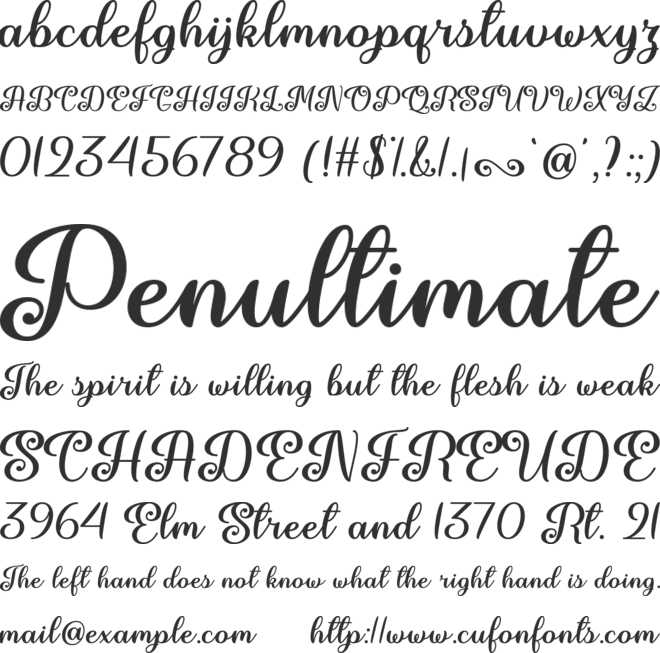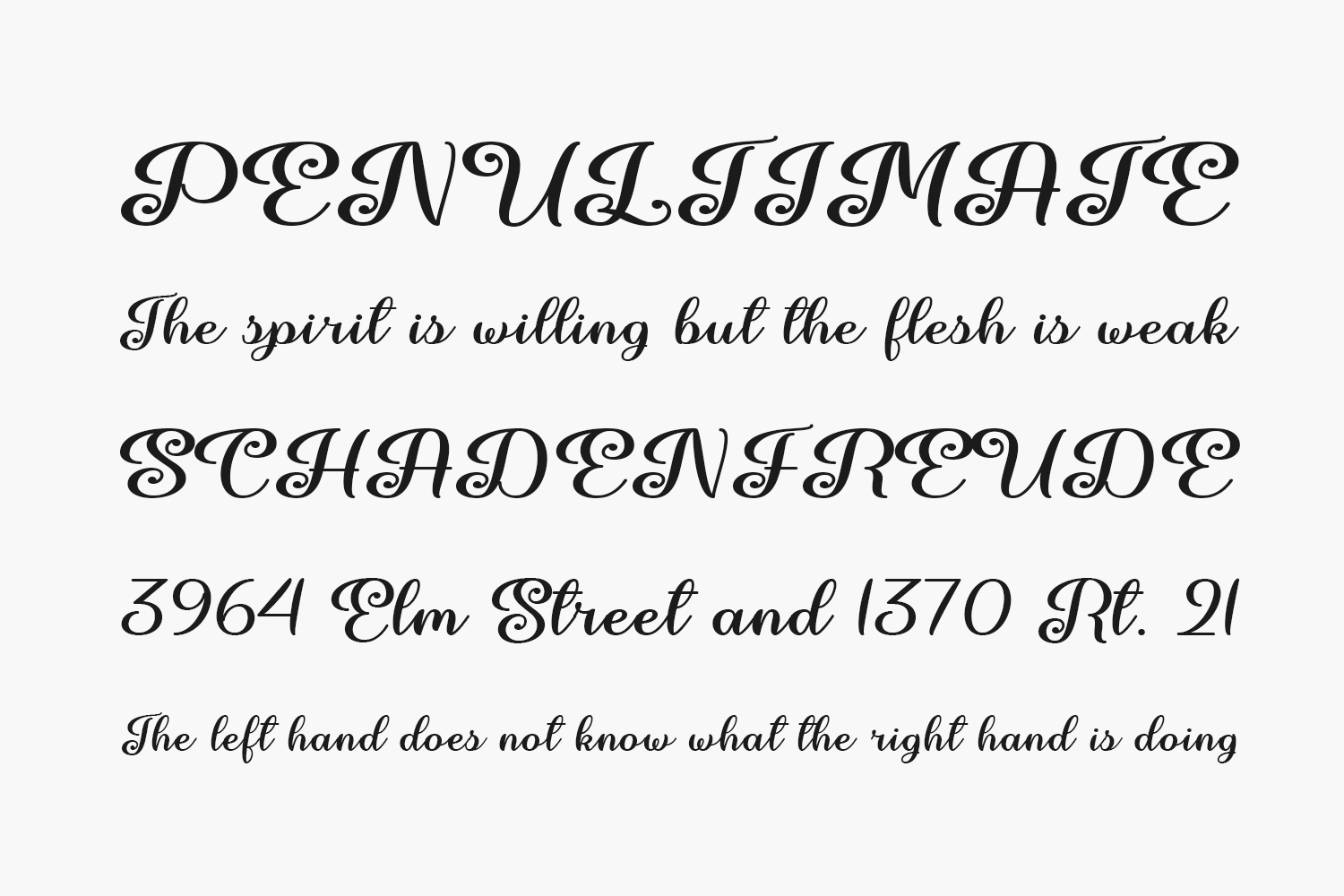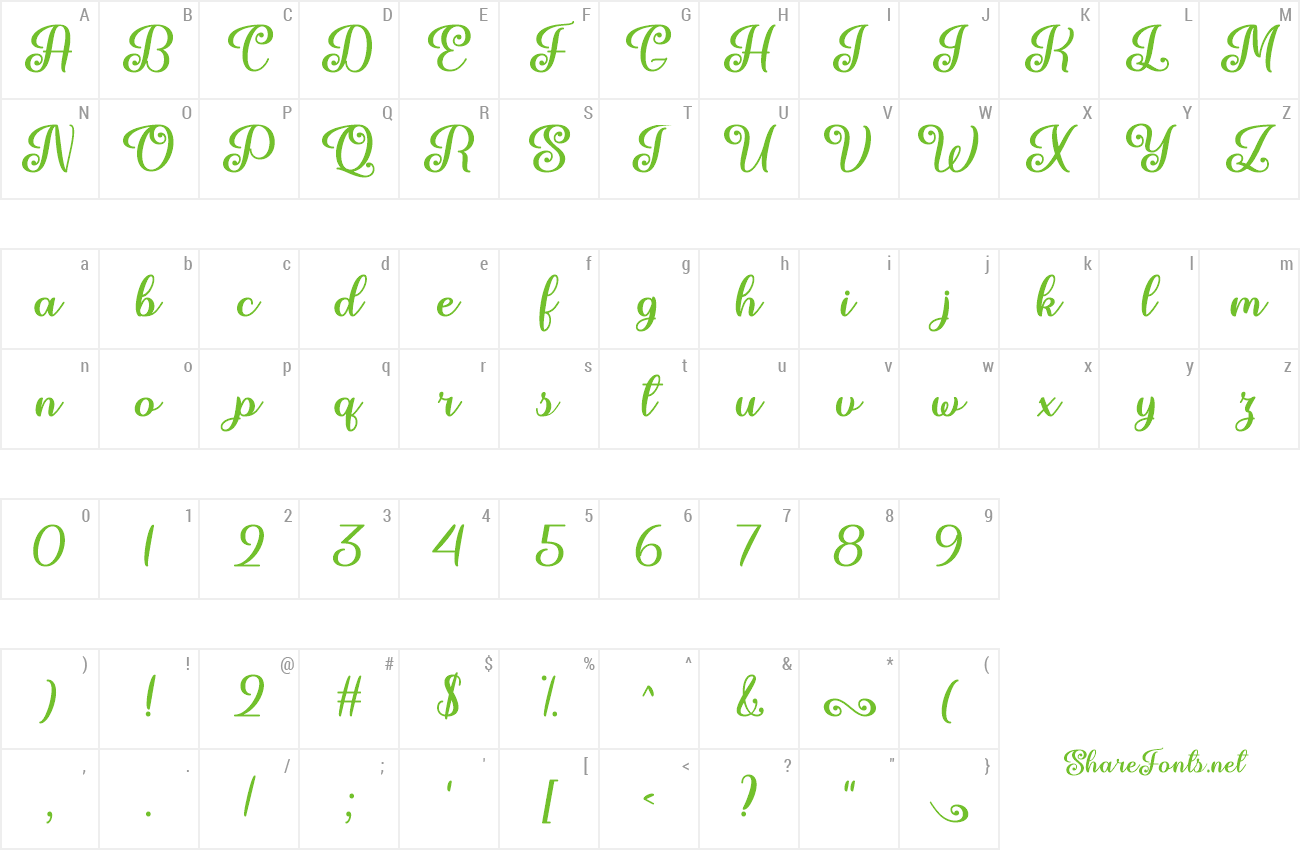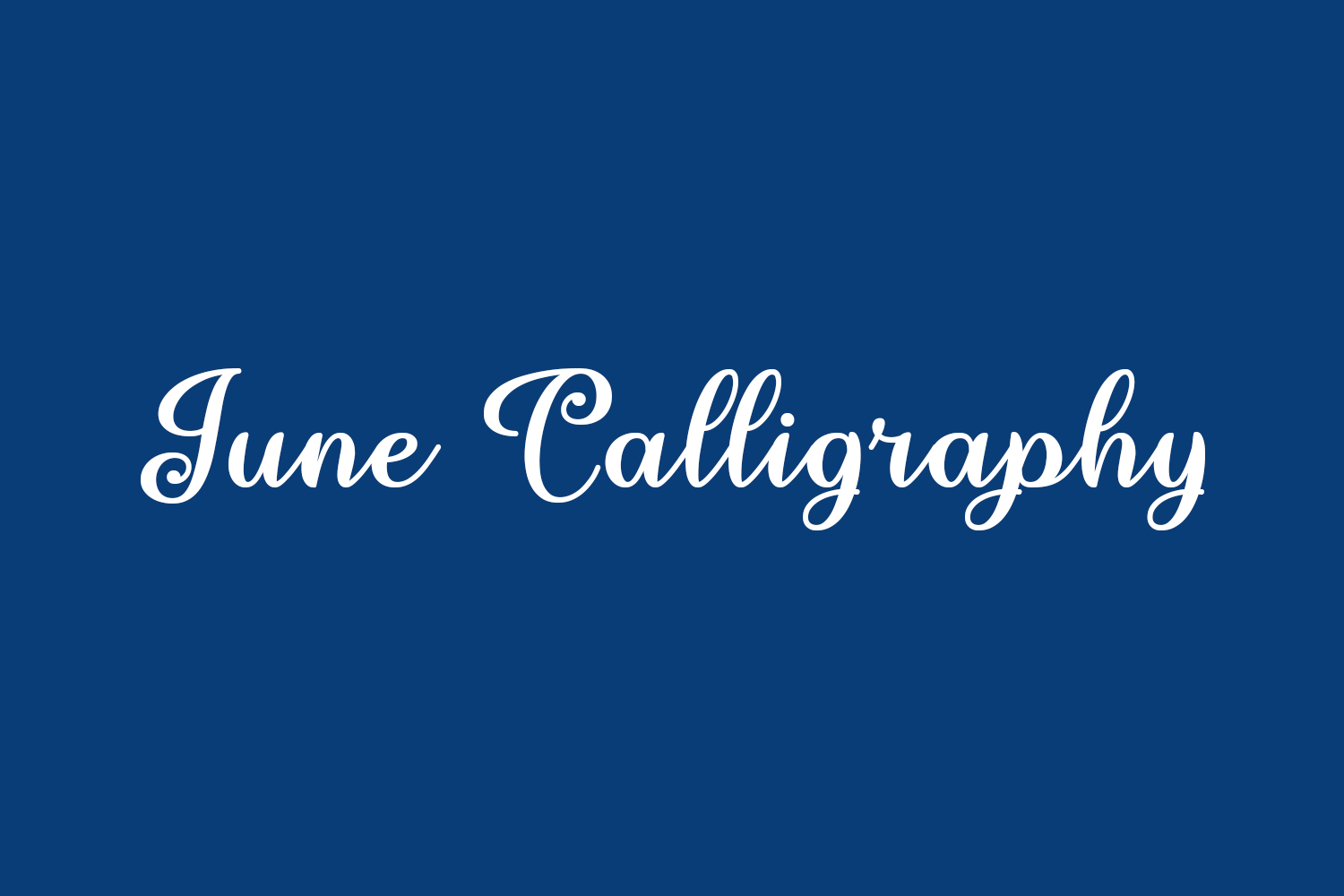
June Calligraphy Font
Web june calligraphy is a superb script font that was designed and released by misti. This script typeface includes many. June calligraphy à € by misti's fonts. The june calligraphy font has been downloaded 12,384 times. Web download the june calligraphy font by misti's fonts.
Web June Calligraphy Is A Superb Script Font That Was Designed And Released By Misti.